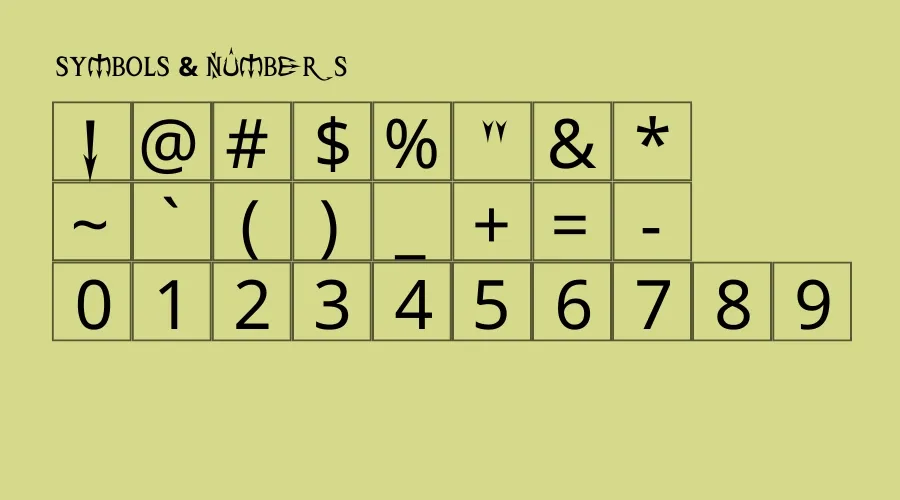
Mythology Font
About Mythology Font
UICREATIVE created Mythology Font which is a serif text style. Whether you are a graphical creator or web designer, this font is an adjustable font for a diversity of ventures.
It features eye-catching symbols that create it suitable for captions and symbols. Nevertheless, if you would like to increase your knowledge, you may download the free version of this font from our website. You can easily compare this font with the graphik font.
As the main idea behind creating this typeface is to provide unique but functional designs that would be ideal choices among different fonts, the designer wanted to create a typeface that would provide unique yet functional designs.
The typeface can be utilized for equally electronic also printed pattern projects. Additionally, appropriate for headings, body text, and symbols. Also supreme for tagging, advertising, and packaging pattern.
Additional sites you can utilize this typeface include pages, pamphlets, flyers, billboards, company cards, displays, books as well as journals. This typeface is very similar to the sareeka font.
If you want the latest typeface over a sleek look for your further project this design is best. Using this typeface has the advantage of allowing you to easily find alternative typeface styles and choose from them according to your need.
Name Mythology Font
Designer UICREATIVE
Style Serif